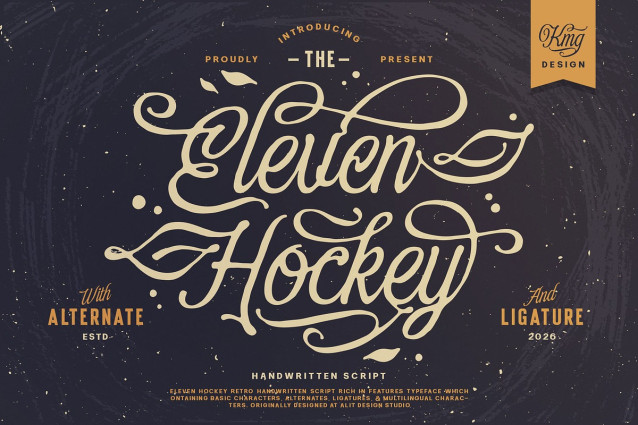
Eleven Hockey Script Font
Eleven Hockey Script Font a masterfully crafted handwritten script that strikes the perfect balance between vintage nostalgia and modern elegance. Originally designed at Alit Design Studio, this typeface is inspired by classic retro lettering, offering a rich, organic feel that adds a personal touch to any creative work.
Eleven Hockey is not just a font; it is a comprehensive design toolkit. With an expansive library of 1009 glyphs, it provides unparalleled flexibility. Whether you are aiming for a sophisticated look with elegant swashes or a more rugged, adventurous vibe, the vast array of alternates and ligatures allows you to customize every word to perfection.